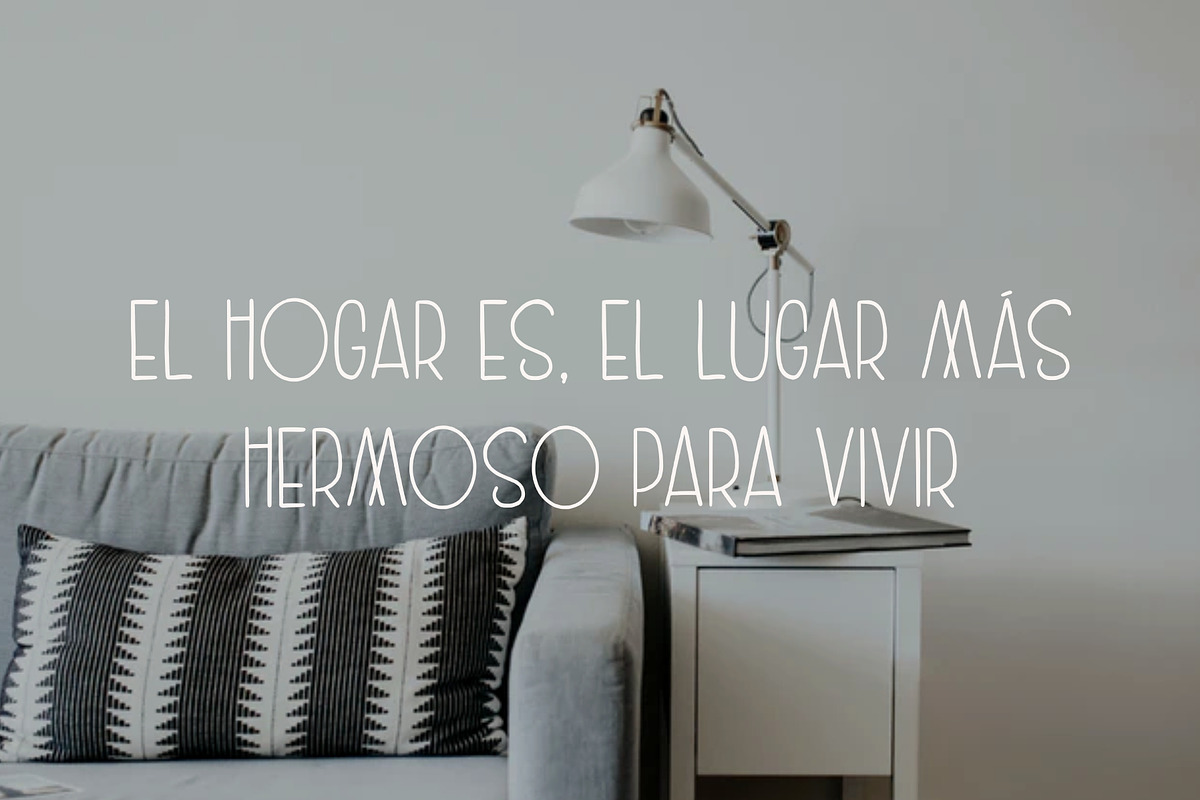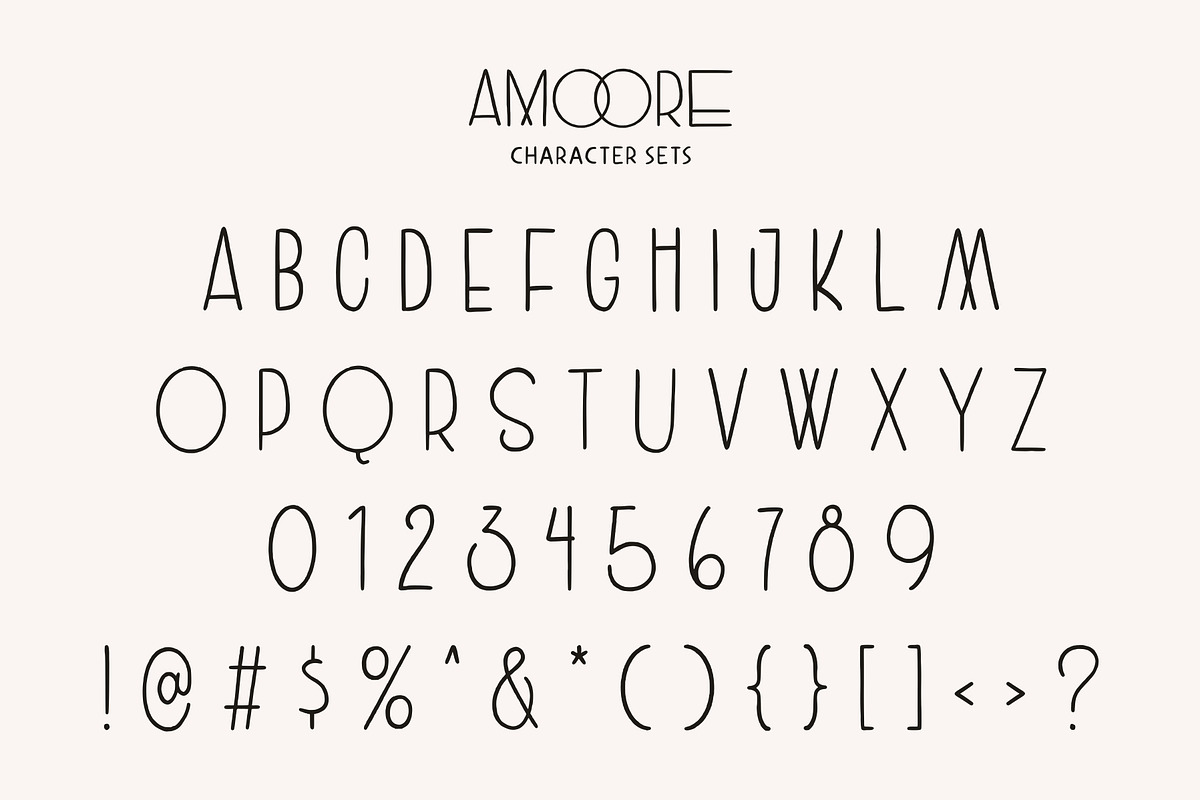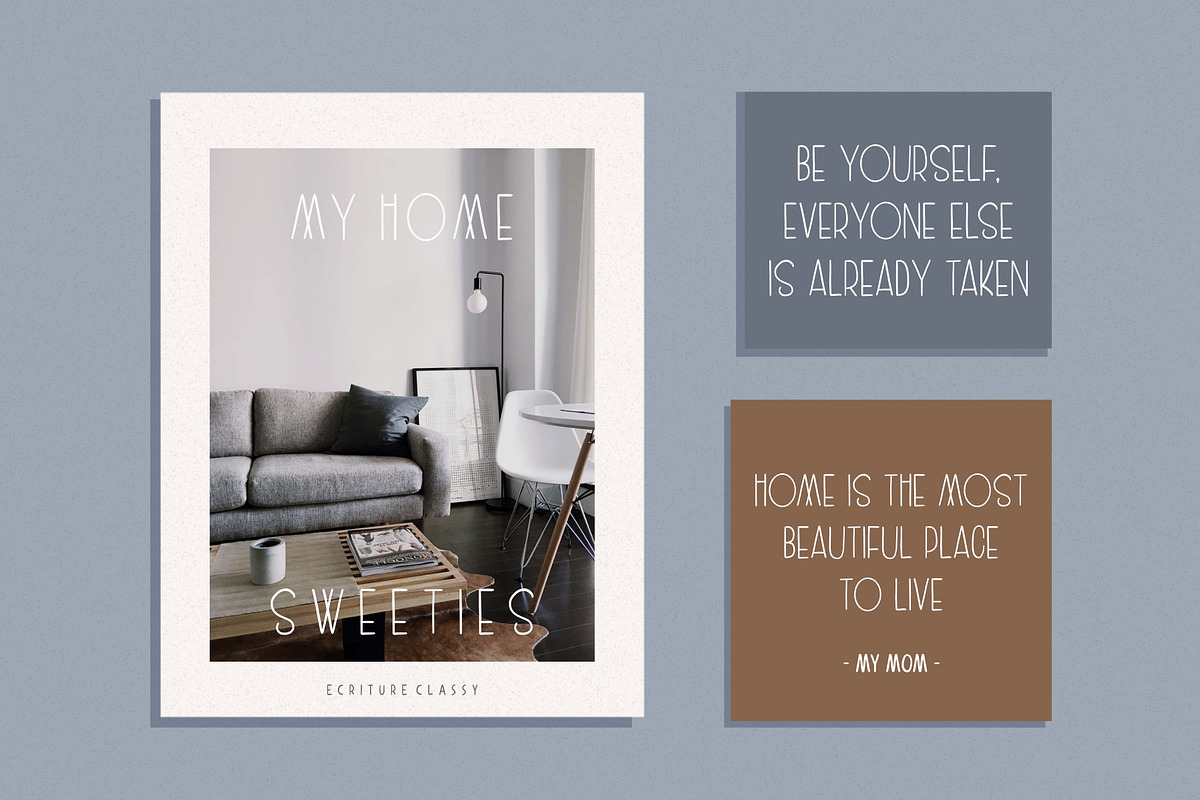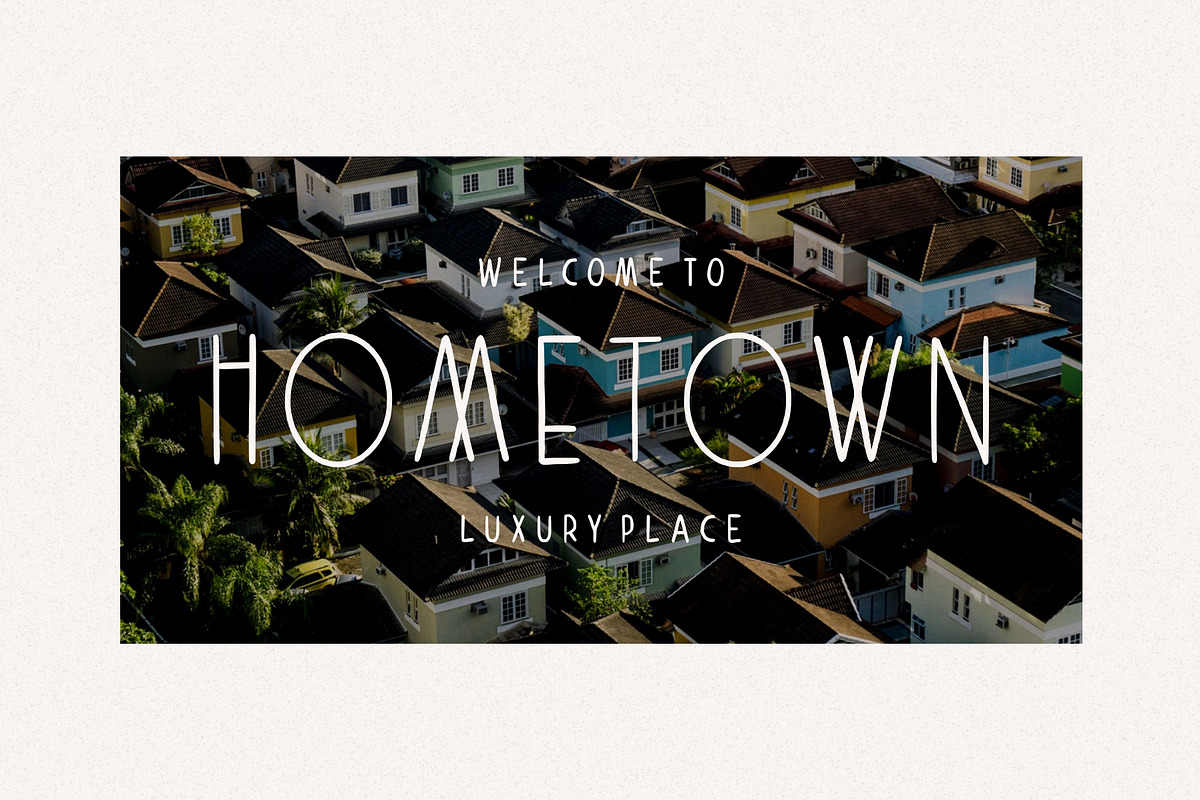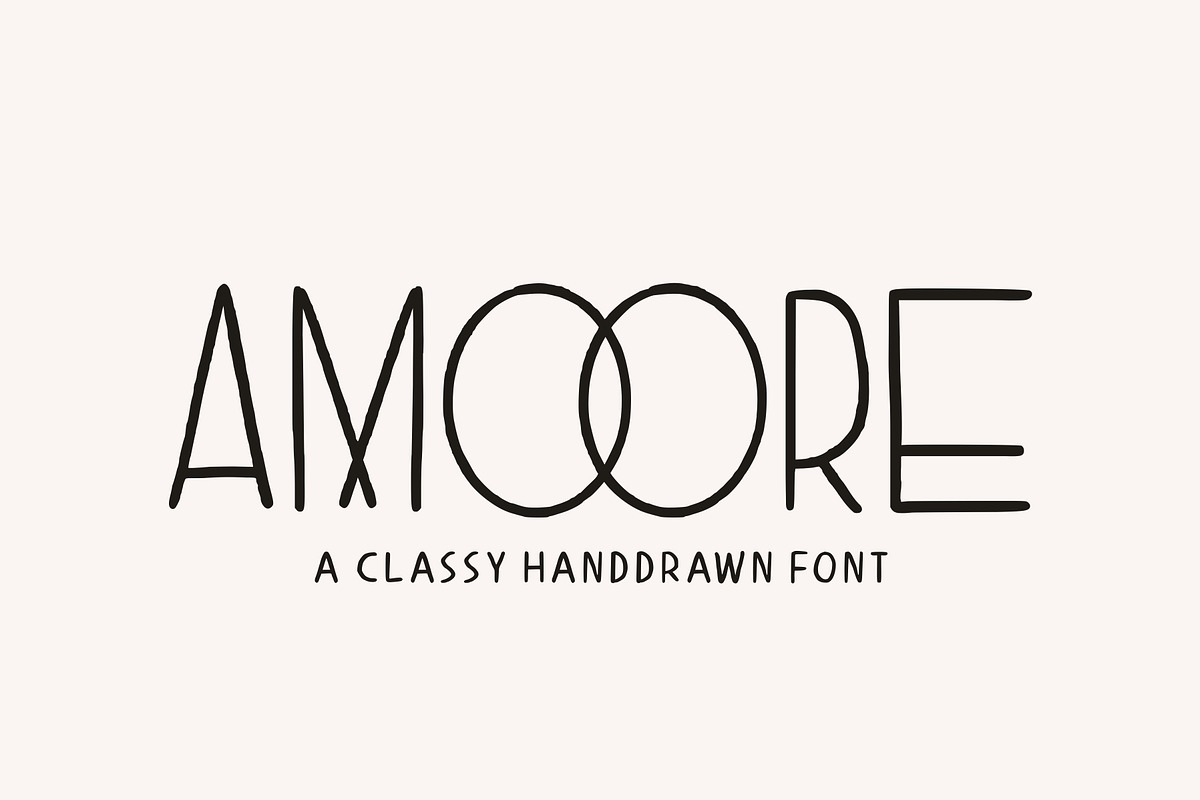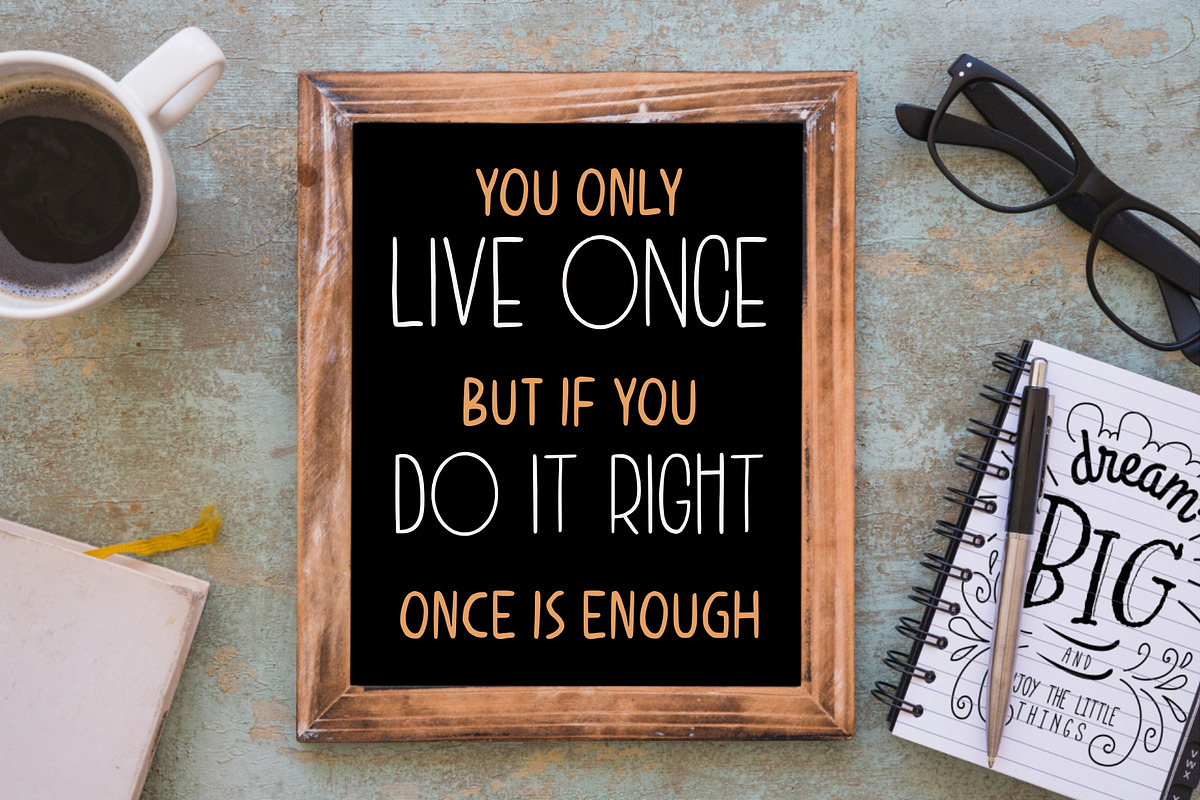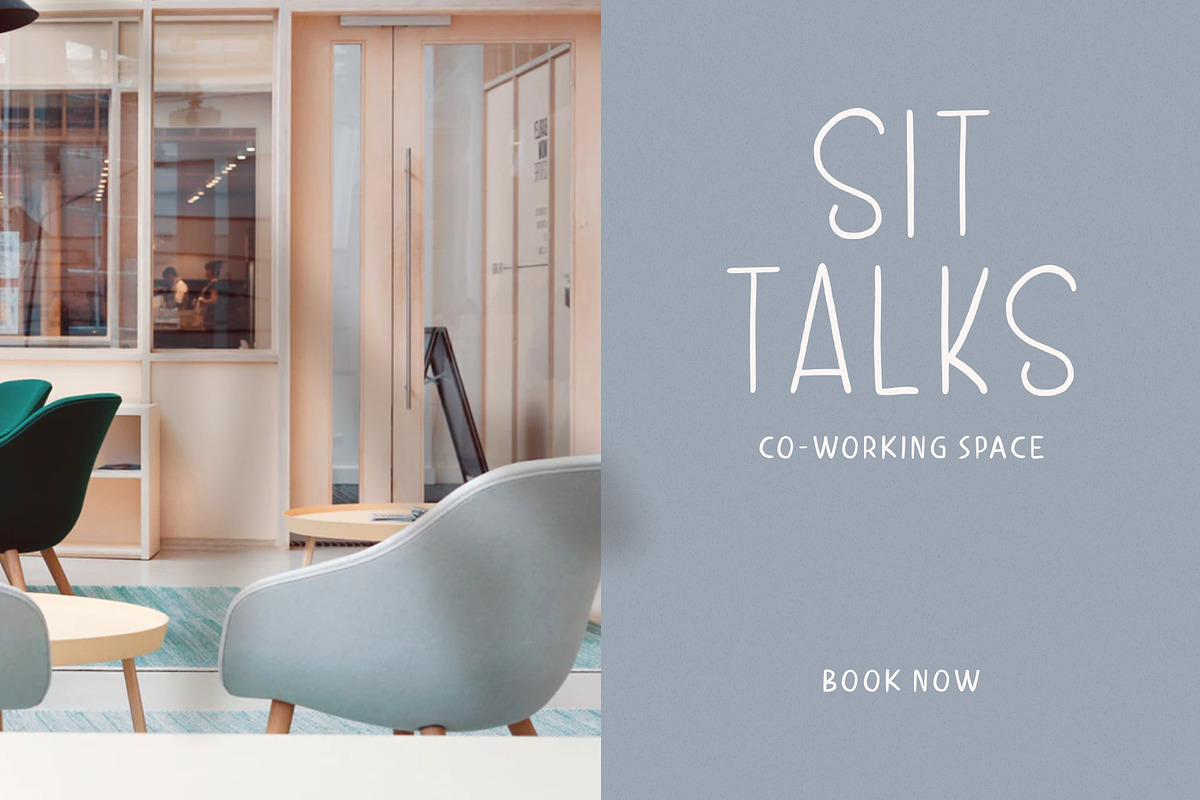
Amoore - Classy Handdrawn
Introducing Amoore || Handdrawn Font
Amoore is born from original and hand-drawn style font. This font gives a feel of a classic, old, handmade looked like. Already PUA Encoded and I think this font is perfect for people looking for an aesthetic or hand-drawn logo. Suitable for any graphic designs such as branding materials, t-shirt, print, business cards, logo, poster, t-shirt, photography, quotes .etc.
- Multilingual Support with Accent